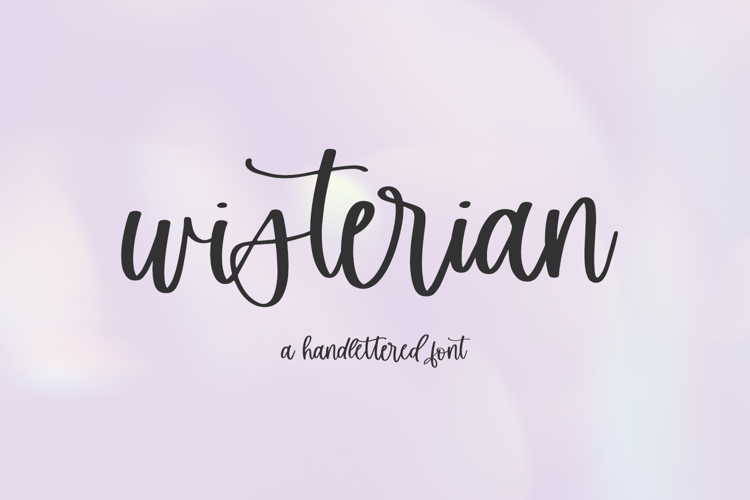
Wisterian Script Font
Introducing Wisterian, a handlettered modern calligraphy font with alternates & ligatures.
Wisterian is best for:
- feminine, crafty projects with your Cricut or Silhouette machine, or your SVG design business
- whimsical farmhouse decor and crafts
- website design + website accents, blog design
- feminine graphic tee shirt design & other apparel
- 28 alternate characters
- 37 ligatures - ar, as, bs, cs, ds, er, es, ex, fs, gs, hs, in, ir, is (x2, standard & discretionary), js, ks, ls, mm, ms, nn, ns, or, os, ps, qa, rs, ss, ts, tt, ur, us, vs, ws, xs, ys, zs